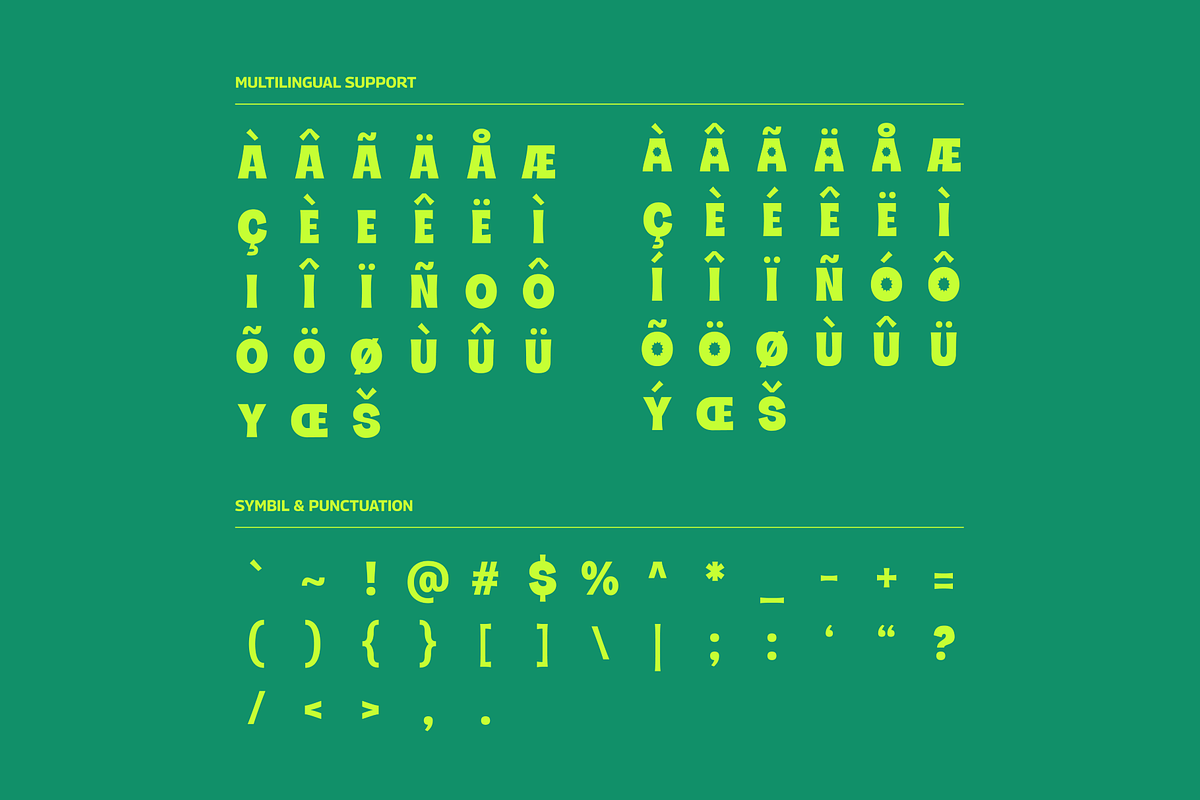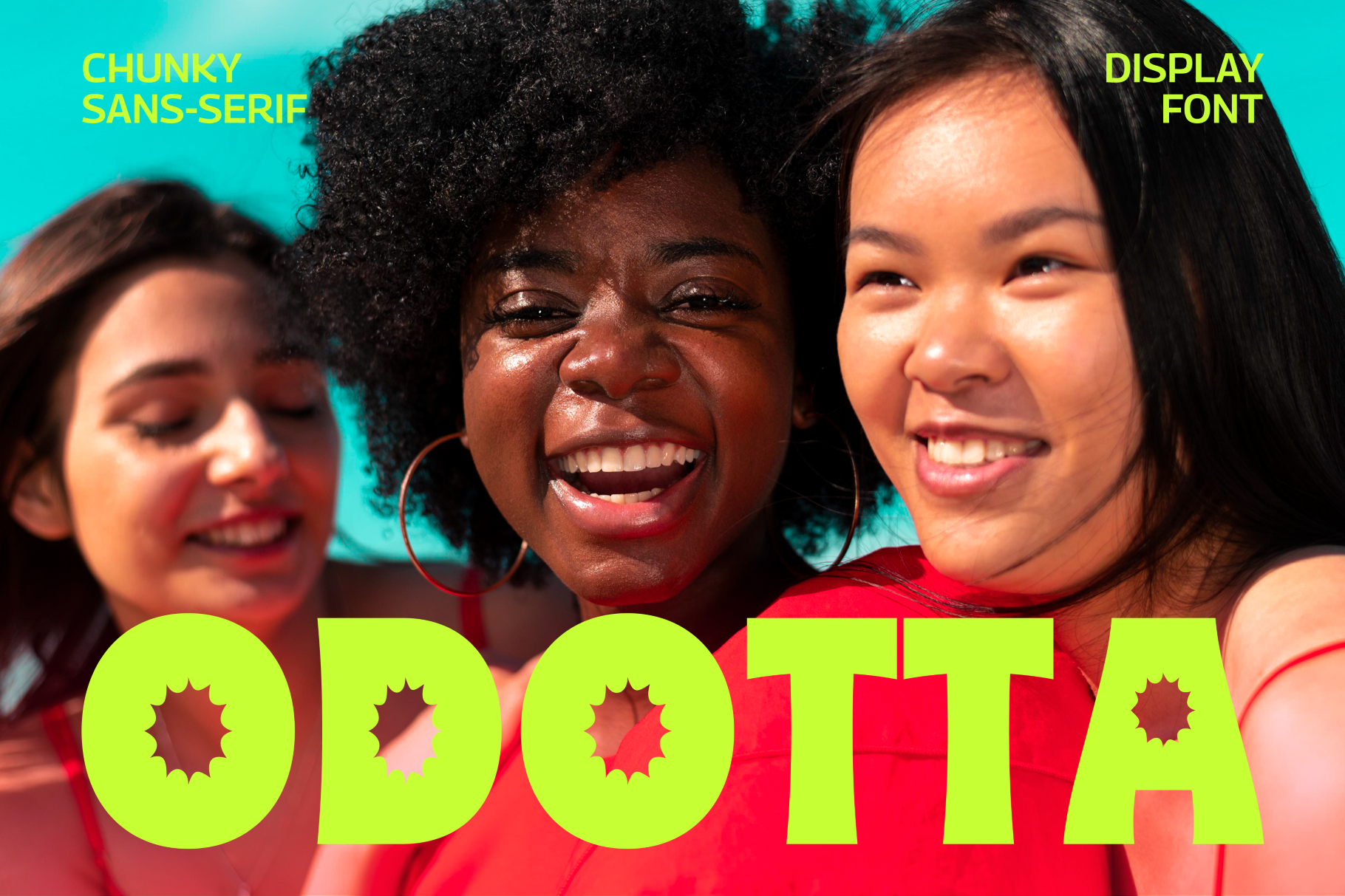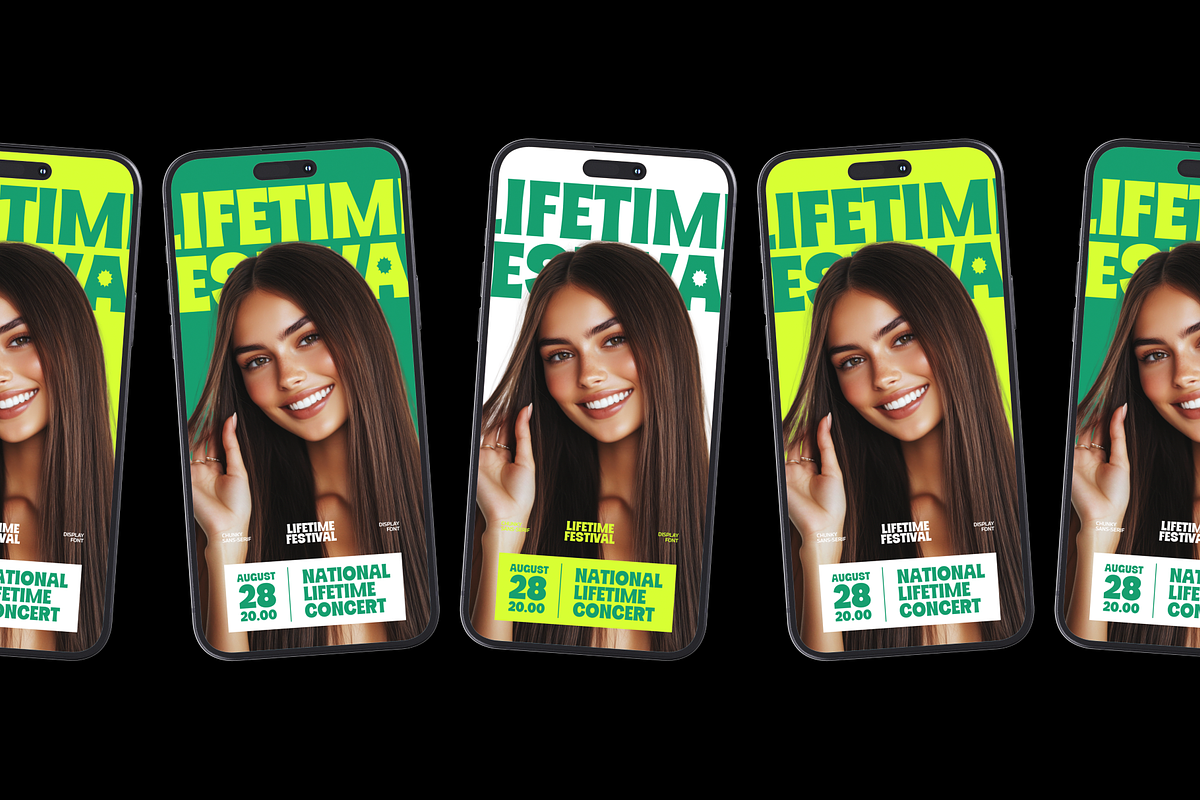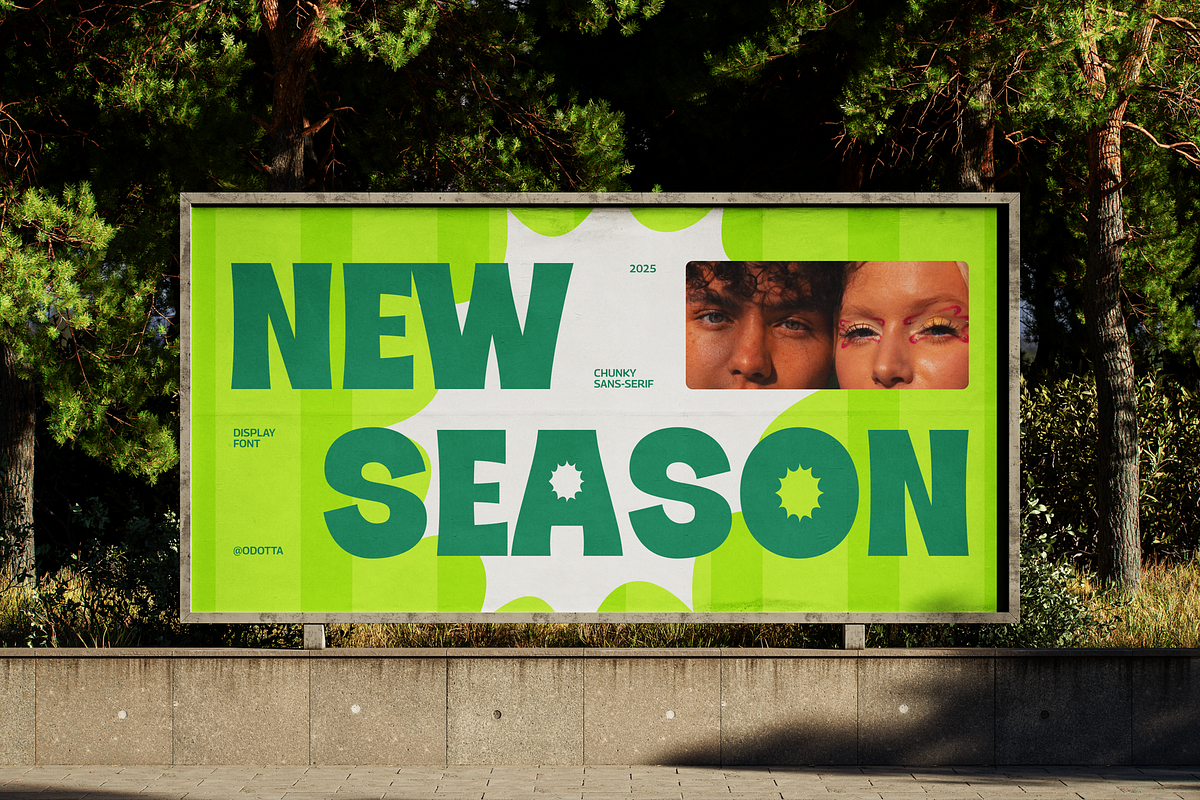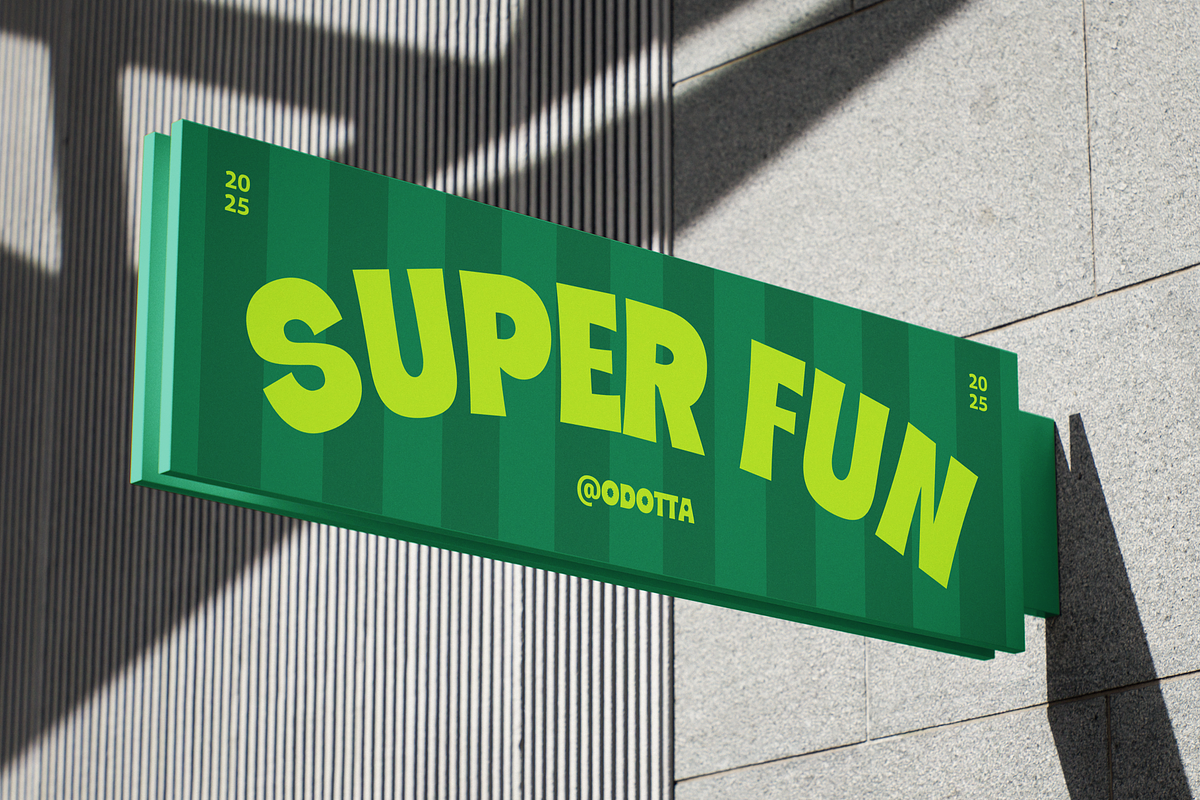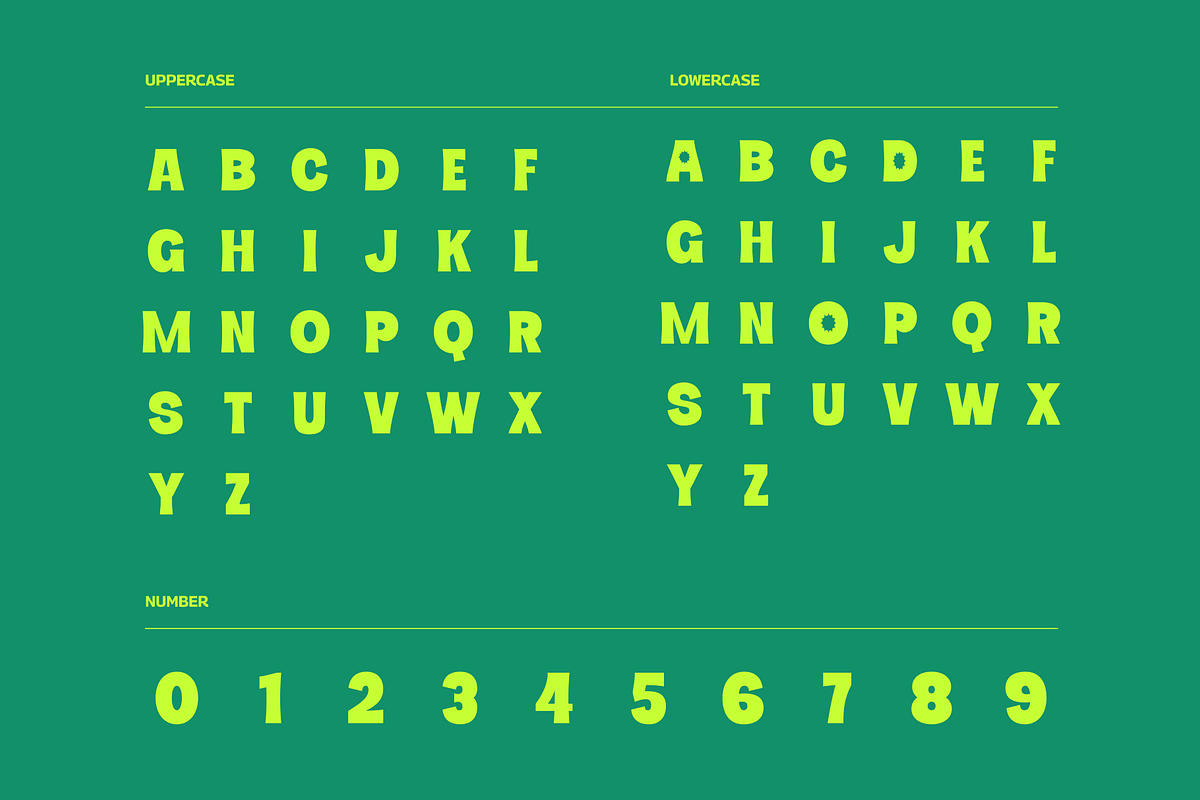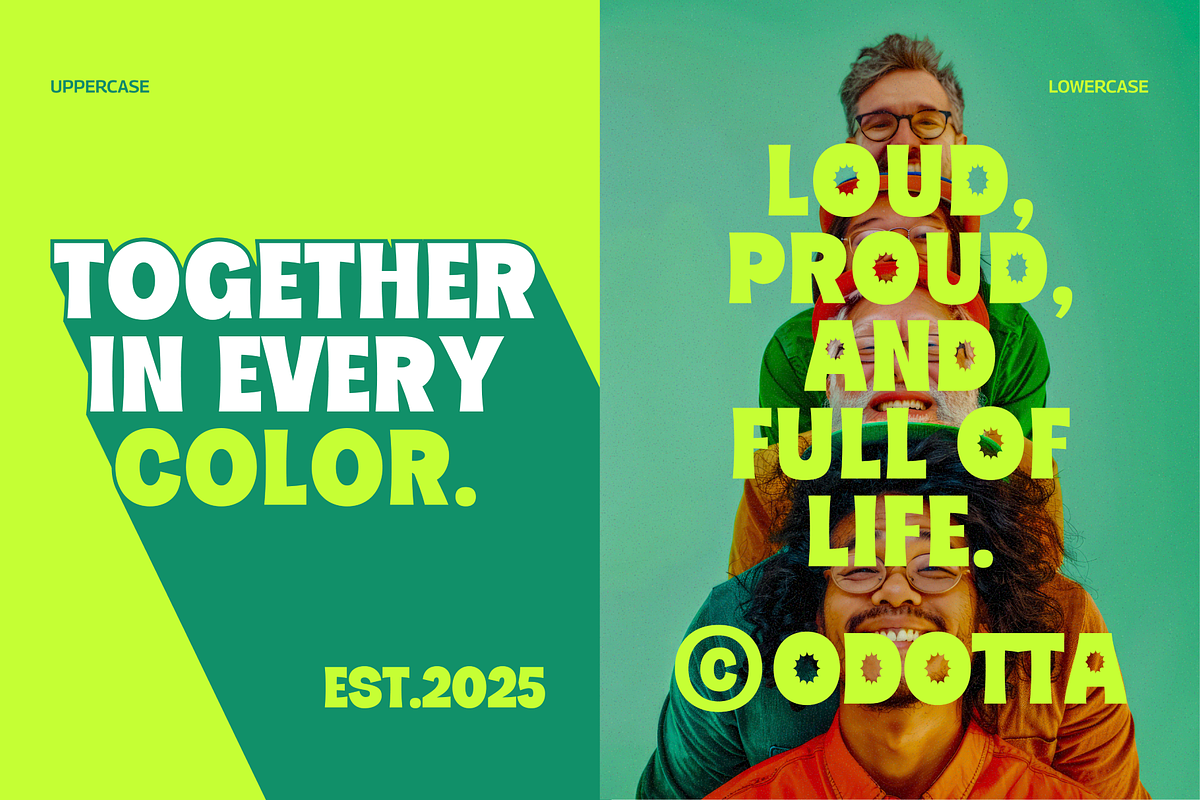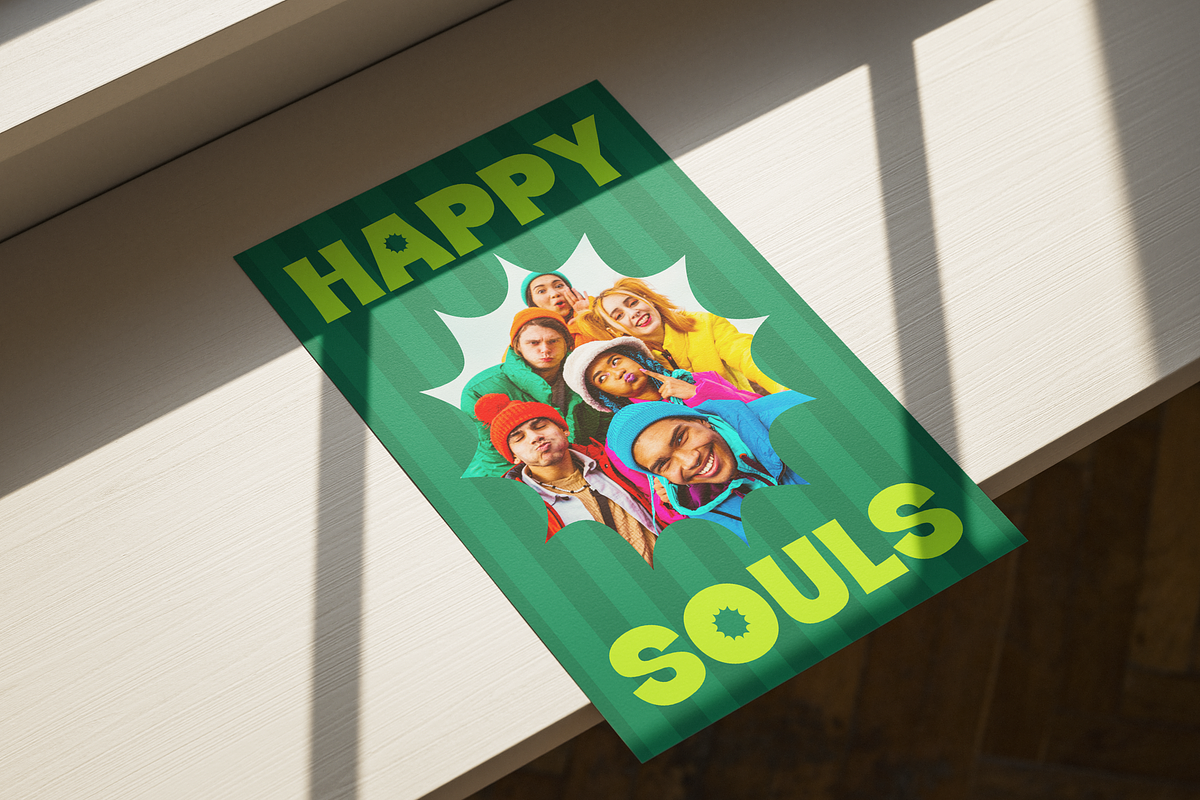
Odotta - Chunky Sans Serif Font
Odotta is a bold, chunky display font with a fun and modern sans-serif style. Its playful cutout details make it perfect for posters, logos, headlines, and creative branding. Add a vibrant and youthful touch to your design projects with Odotta’s eye-catching and energetic character.